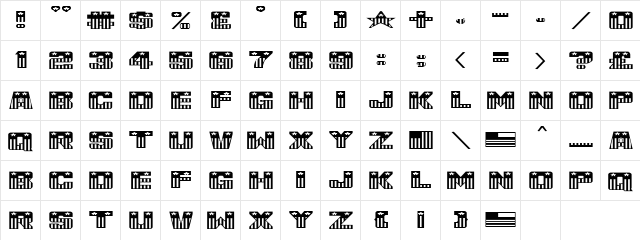
USA_Flag NormalA
Design Context for USA_Flag Typeface
USA_Flag is a composed and adaptable typeface that performs quietly and consistently across a wide range of design contexts.